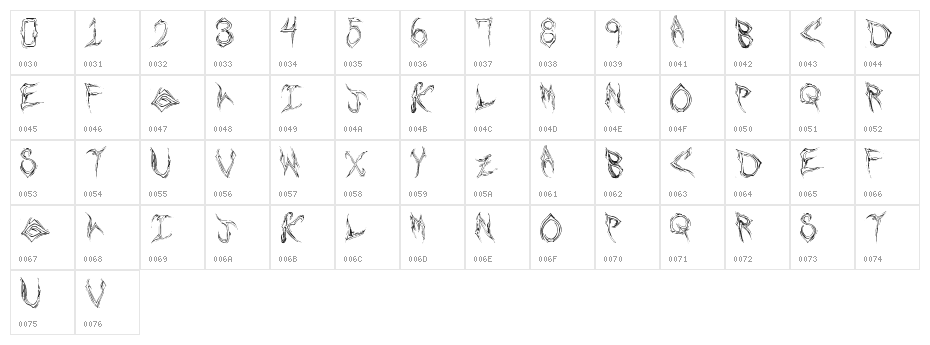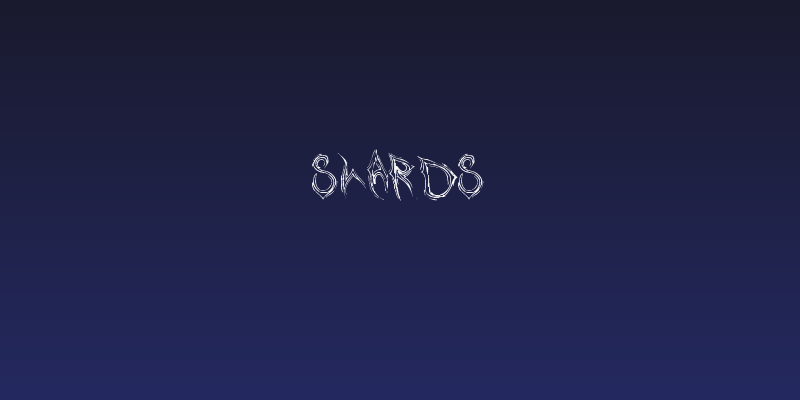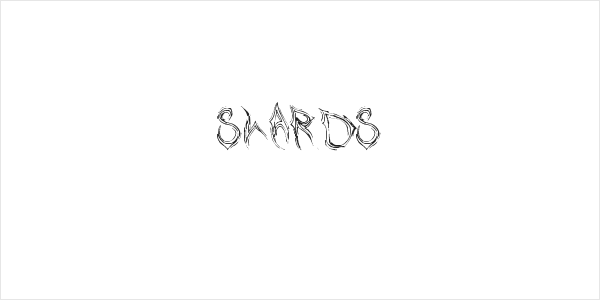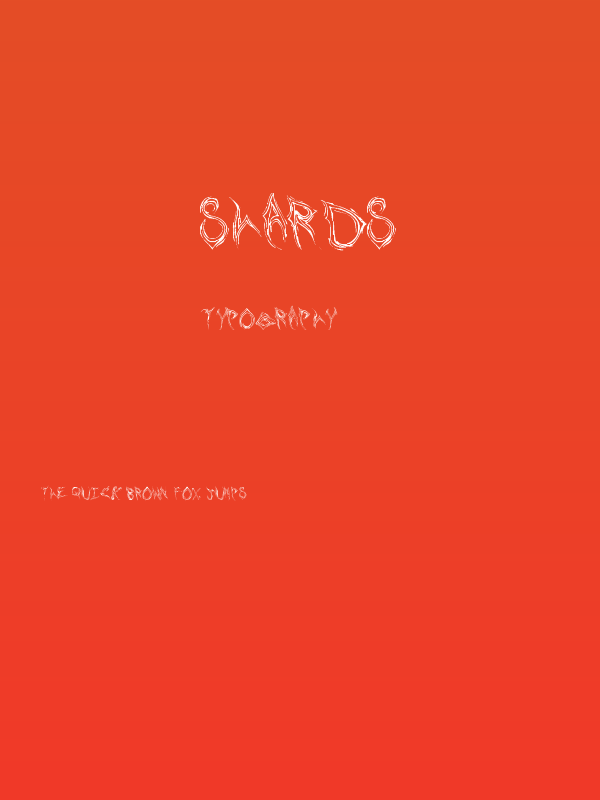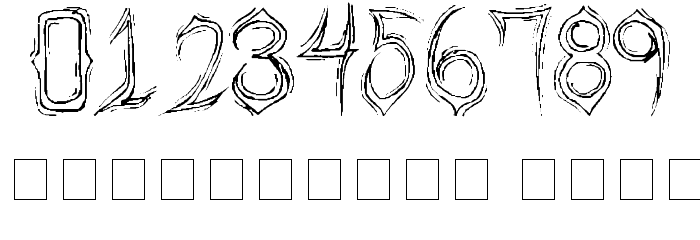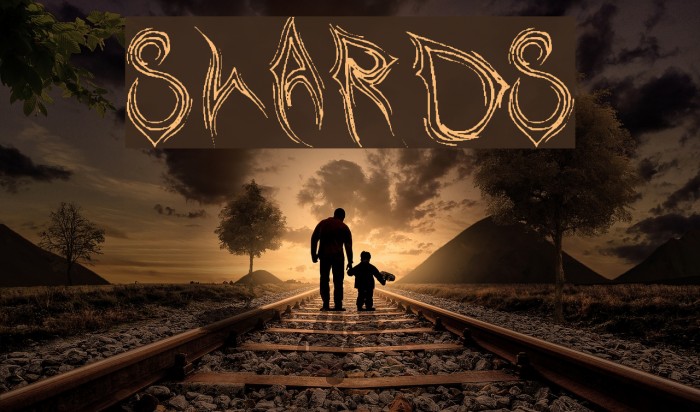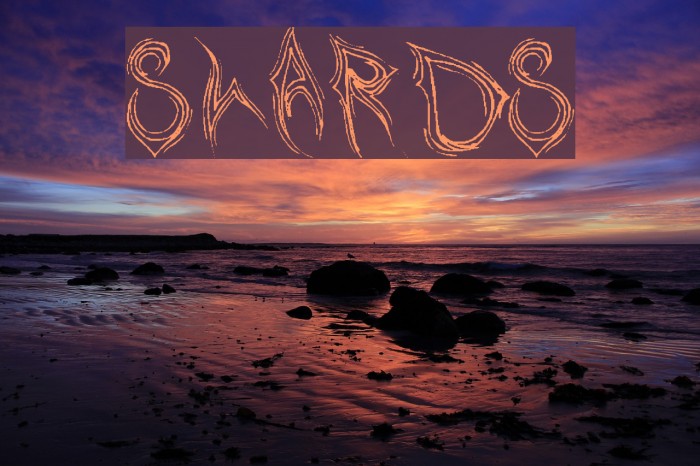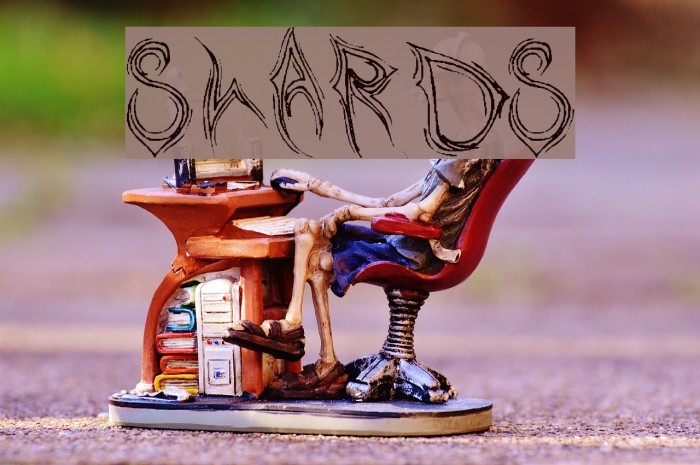
Shards Font
Shards Description
This font features an edgy and fragmented design, reminiscent of shattered glass or jagged shards. Each character is uniquely crafted with sharp, angular lines that create a sense of movement and chaos. The uppercase and lowercase letters maintain a consistent style, with the uppercase being more pronounced and the lowercase slightly more compact. Numbers and special characters follow the same aesthetic, ensuring uniformity across all elements. The font's distinctive style makes it stand out, ideal for projects that require a bold and unconventional look.
| Overall Style | Modern, Edgy |
| Proposed Projects | Perfect for album covers, movie posters, or any design needing a dramatic and edgy touch. |